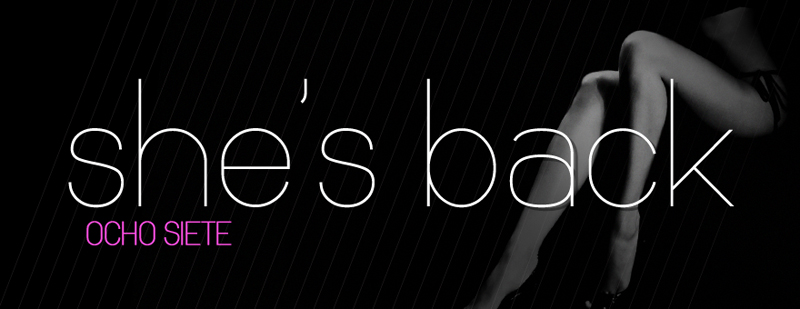
UPDATED Ocho Siete is one of the first fonts that I made. I was happy with it at the time and I received alot of positive feedback, but the more I learned about making fonts the more painful it became to look at. This version retains the original feel of the font, but has been redesigned from the ground up. This version includes: - Better Spacing - Improved Letter Design - Improved Letter Spacing - Tons of Added Symbols - A Veritable Buttload of Class In the future look forward to a bold and black weight. Happy designing! http://michaelmuranaka.com/ocho-siete-round-2/ ----------------------- For commercial use, please see the font licensing agreement: http://michaelmuranaka.com/font-licensing-agreement/ ----------------------- Check out my new Font Blog to stay up to see when I release new fonts! http://michaelmuranaka.com/category/fonts/ ----------------------- This is free for personal use. Please do not sell, redistribute, or claim ownership of this font. Please DO NOT download this font and redistribute it on another website!!! If you make use of this font, it might be cool if you either credit MuraKnockout Media or Michael Muranaka, or show me how you used it! Enjoy! |